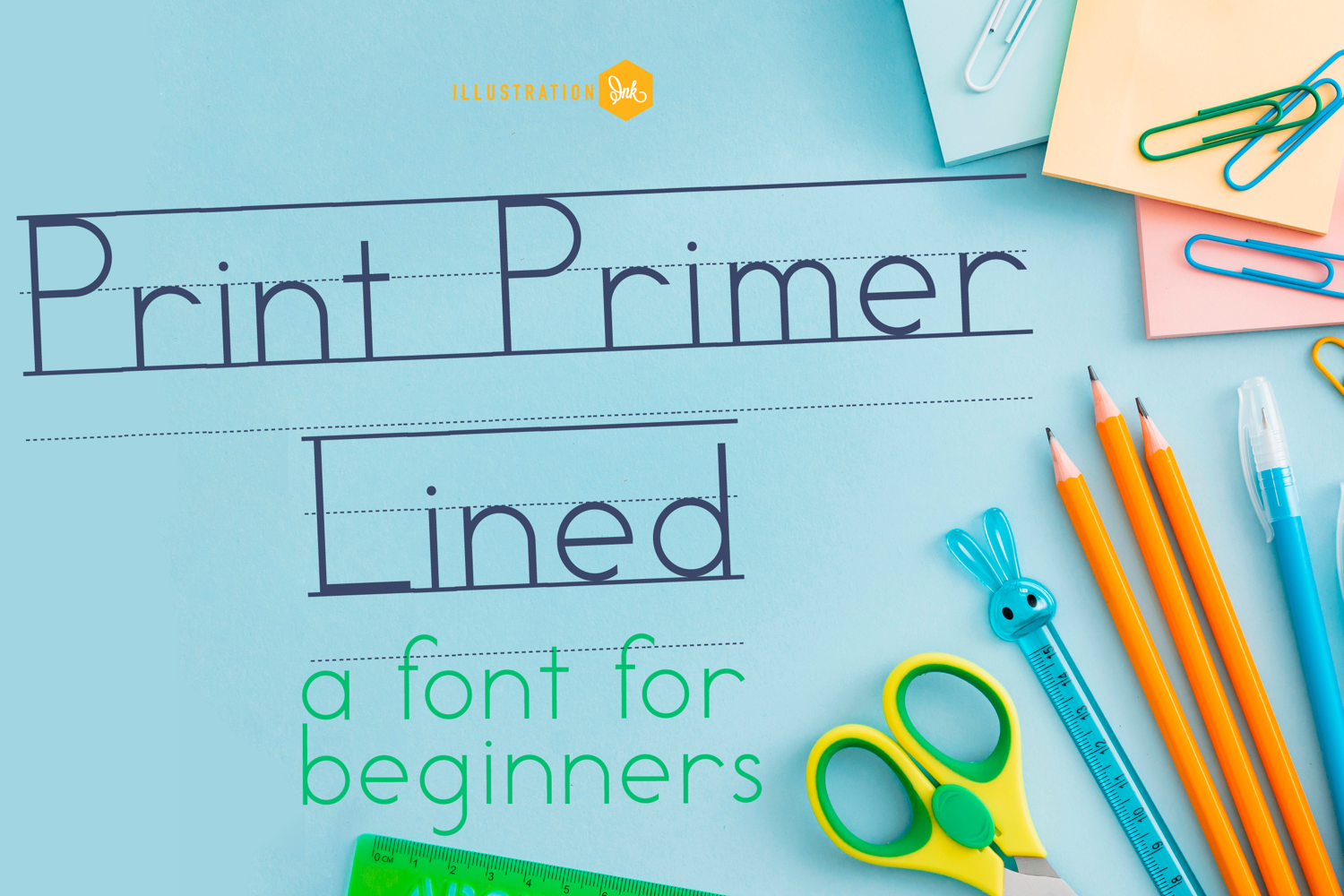
Print Primer Lined
This hand-crafted font is a hand-written print with perfectly form ball and stick lettering that is taught in grade school plus lines and dashed lines like on elementary school paper. There is a full international character set included as well as many weights.